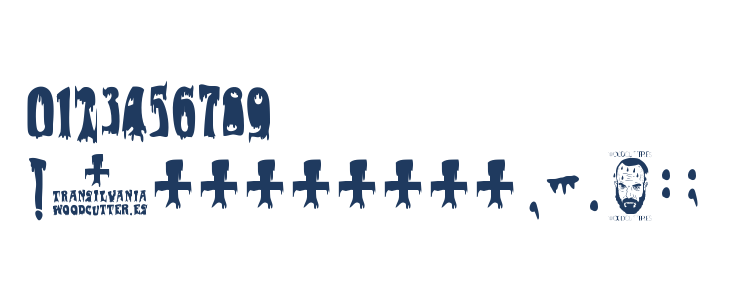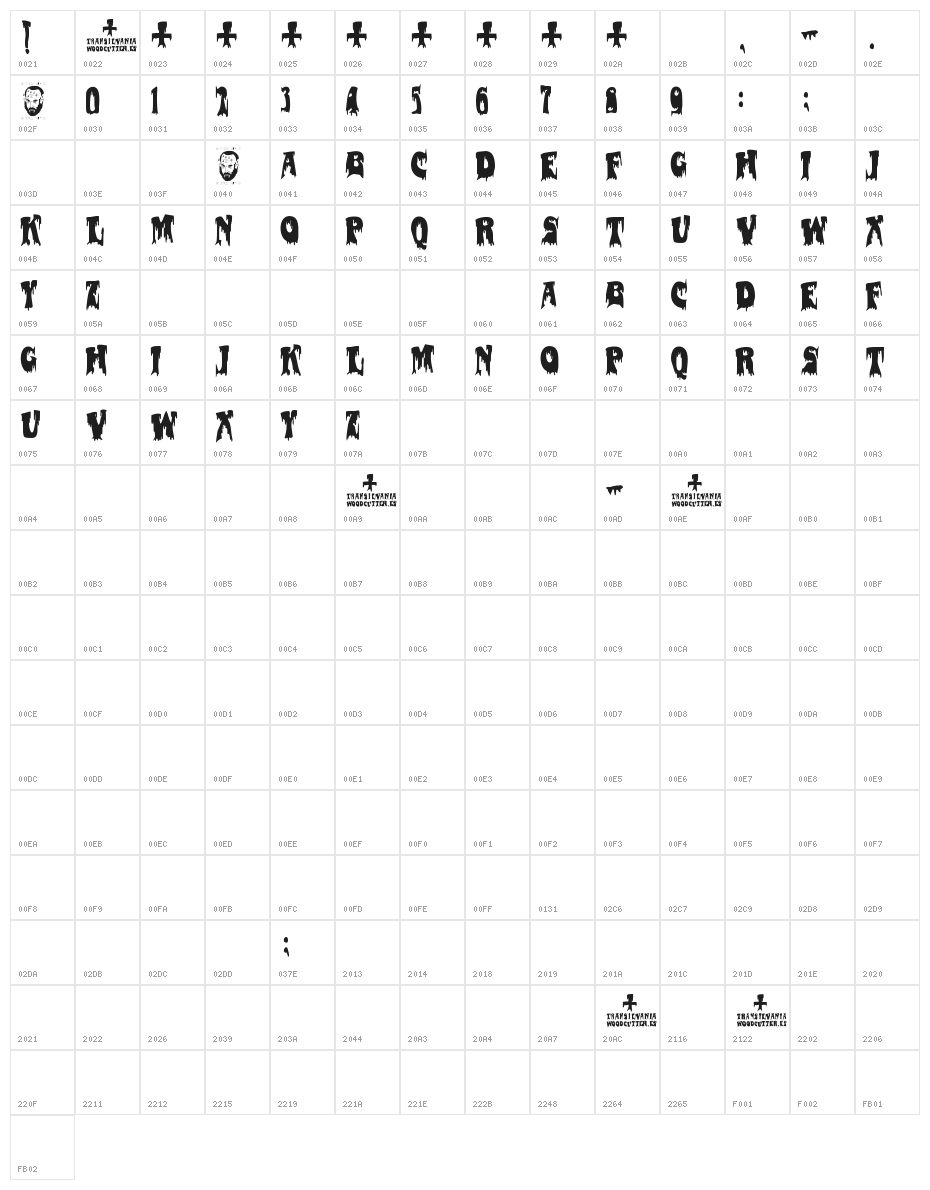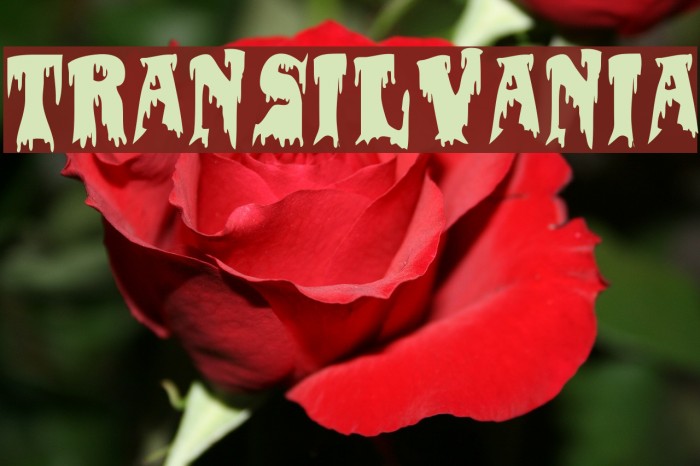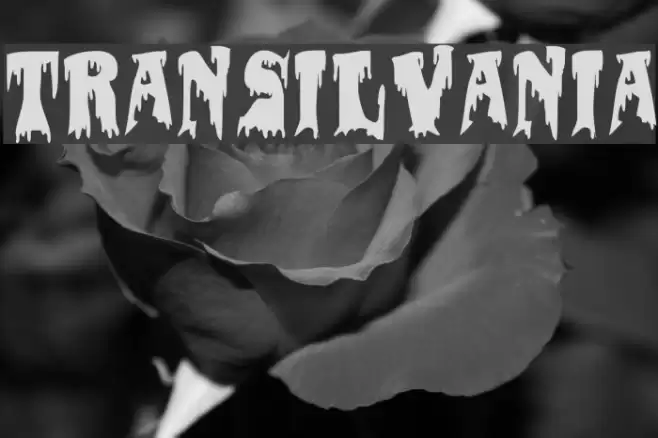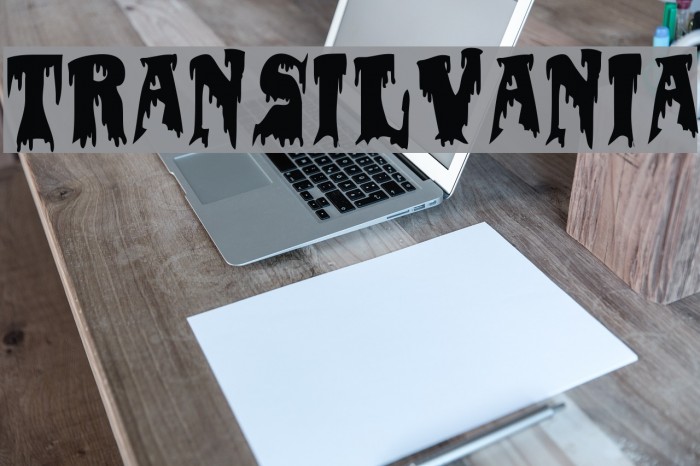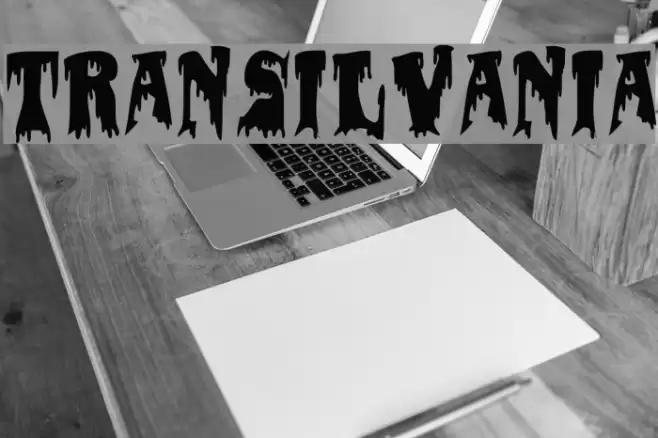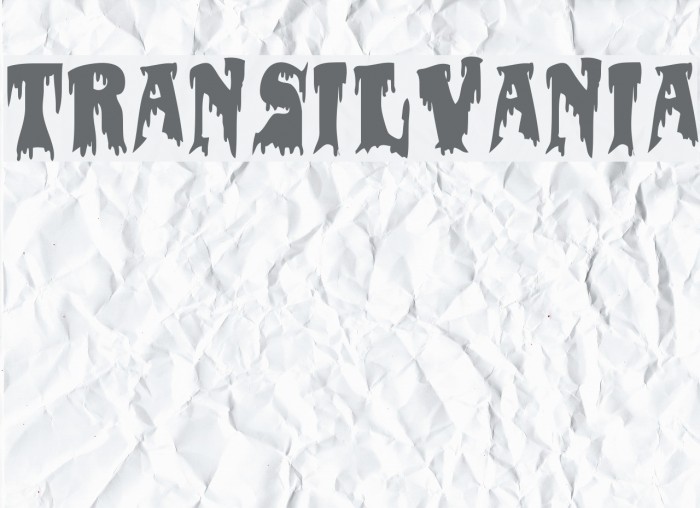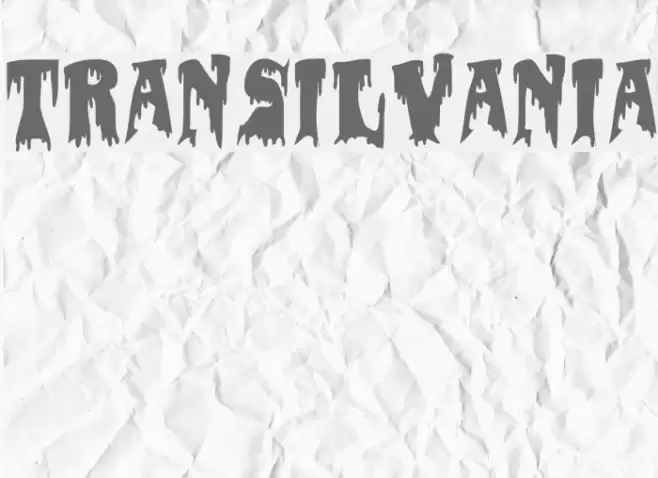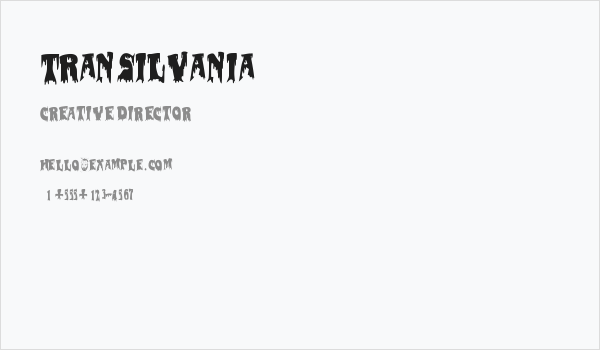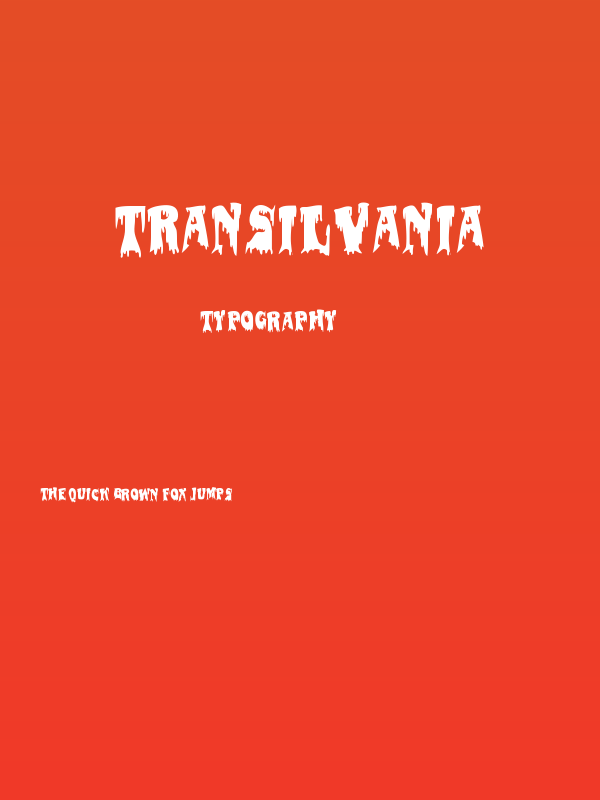
transilvania Font
transilvania Description
This font features a spooky, dripping style reminiscent of horror themes, perfect for Halloween or gothic designs. The characters have a bold, jagged appearance with irregular edges that mimic the look of melting or dripping liquid. This creates a sense of movement and unease, making it ideal for projects that require a dramatic and eerie aesthetic. The uppercase and lowercase letters maintain a consistent style, with numbers and special characters following the same thematic design. The font's unique appearance makes it stand out, capturing attention with its bold and decorative elements.
| Proposed Projects | Halloween invitations, horror movie posters, themed party decorations, haunted house signage. |